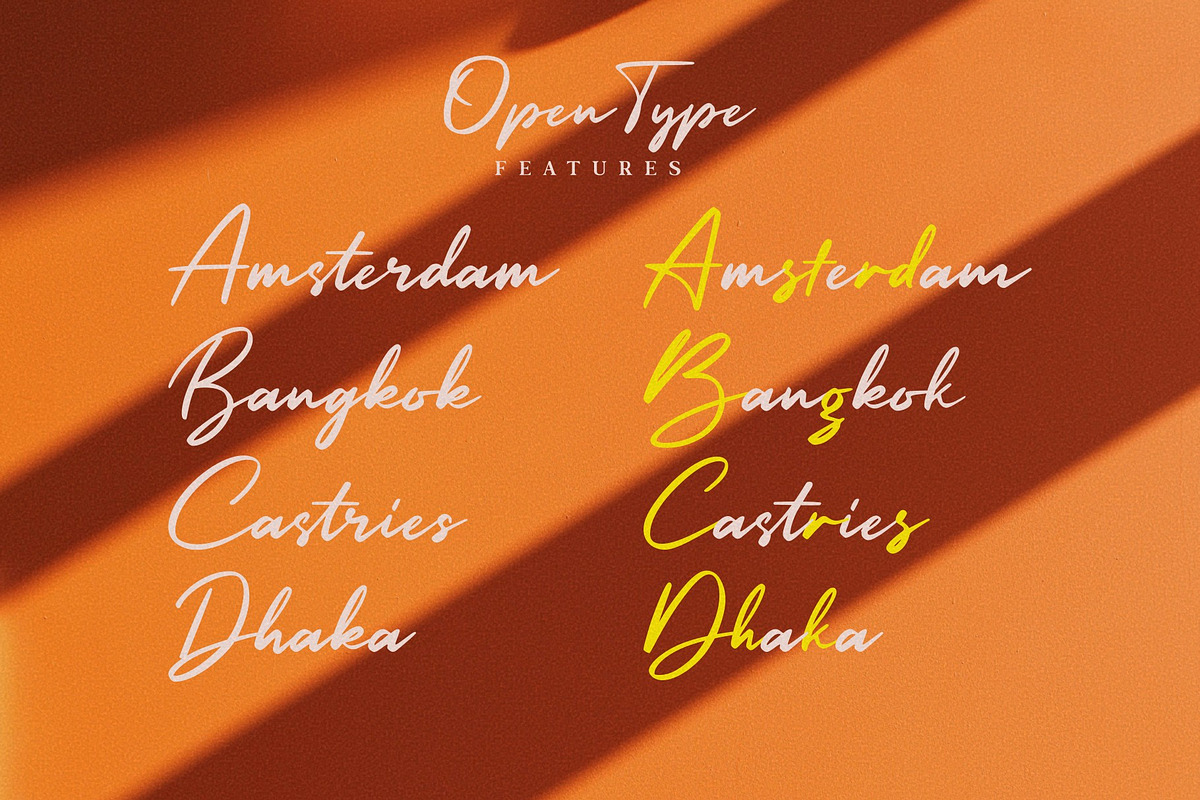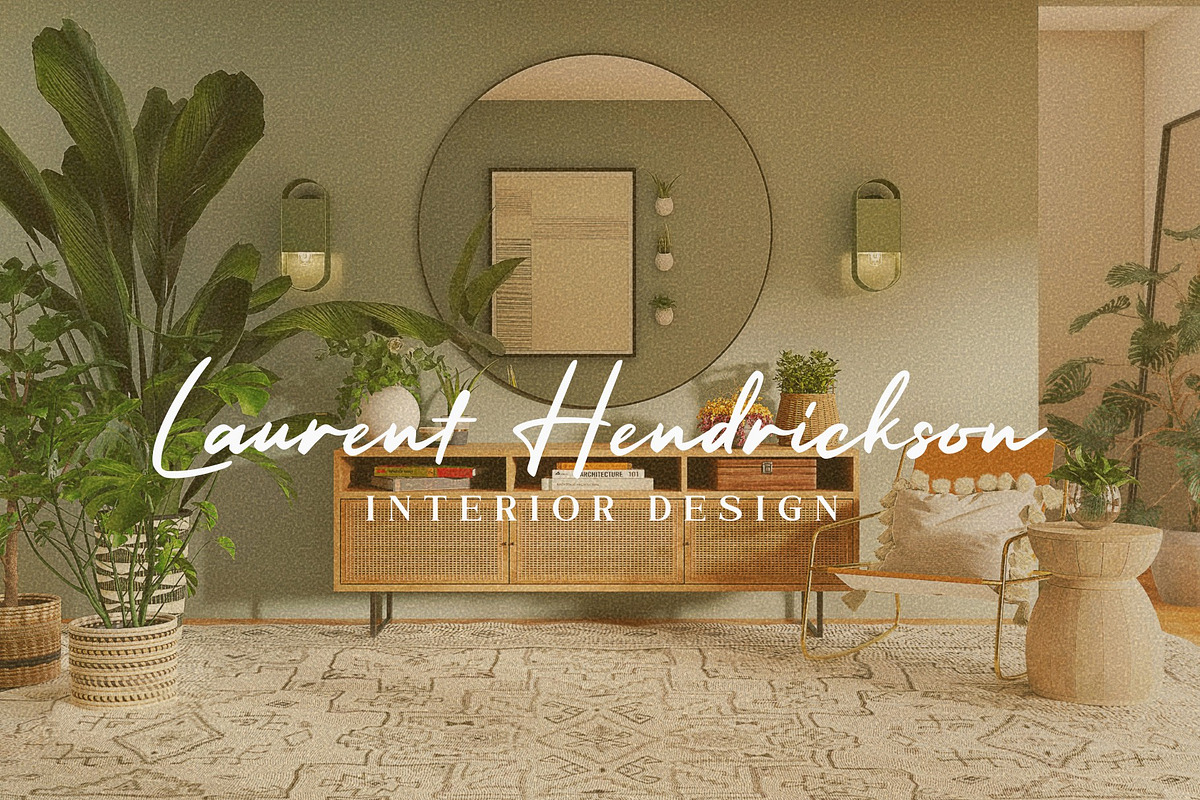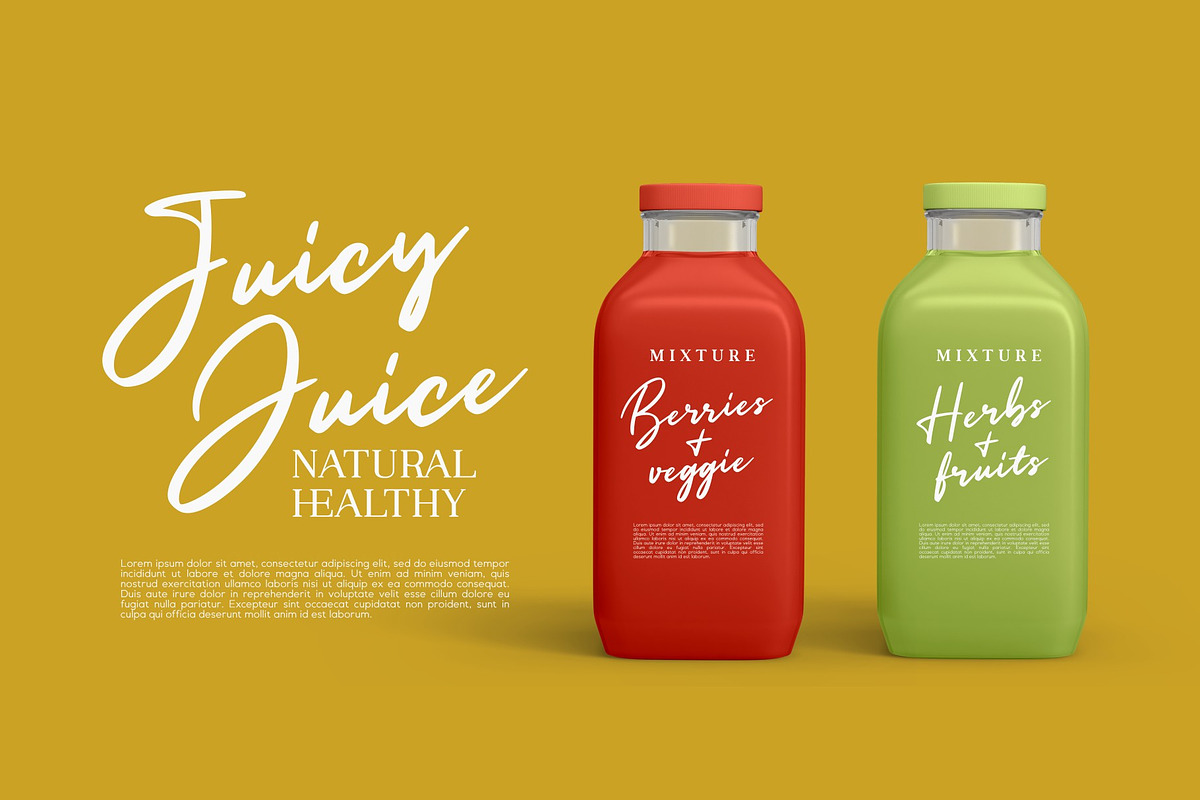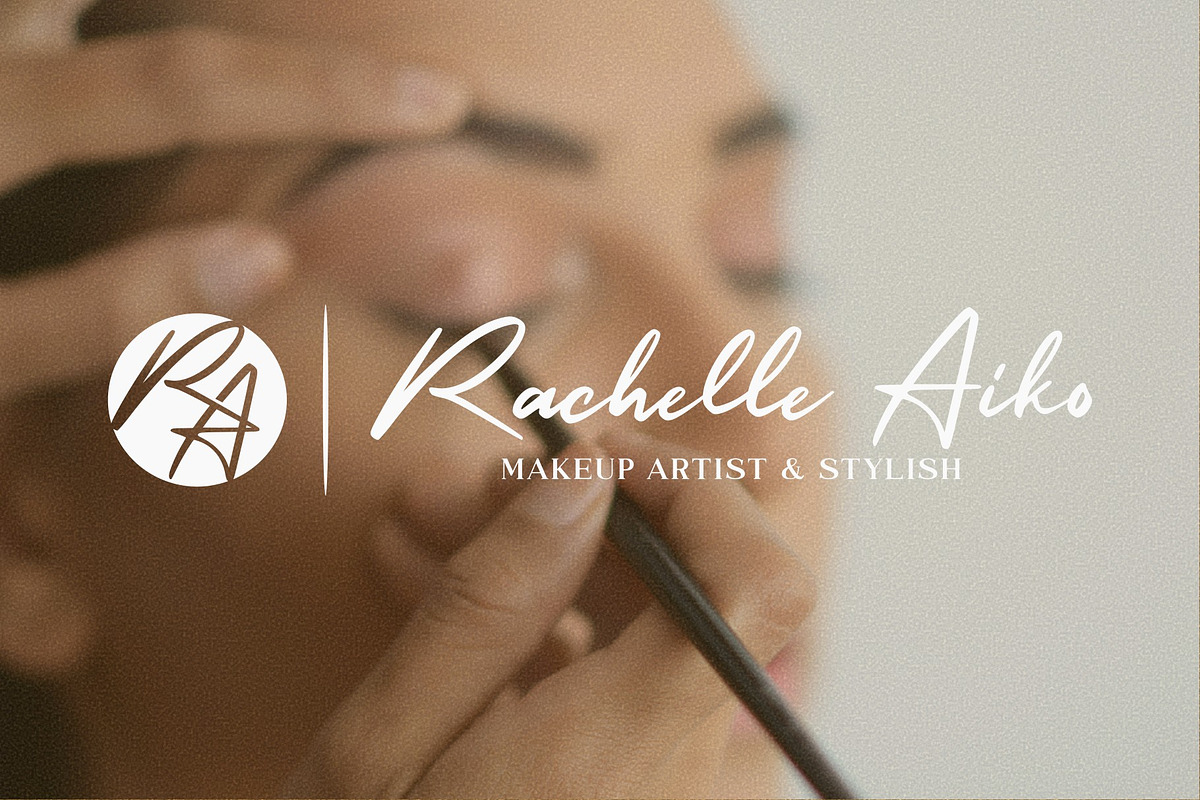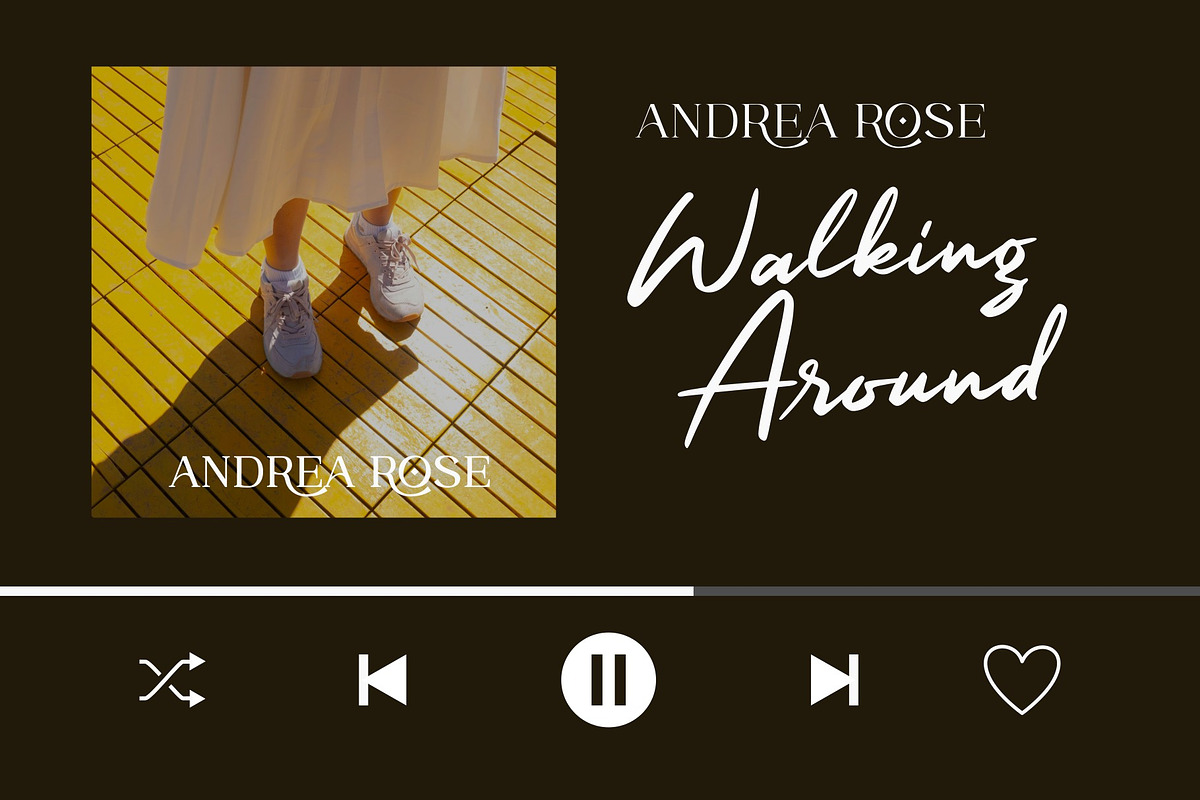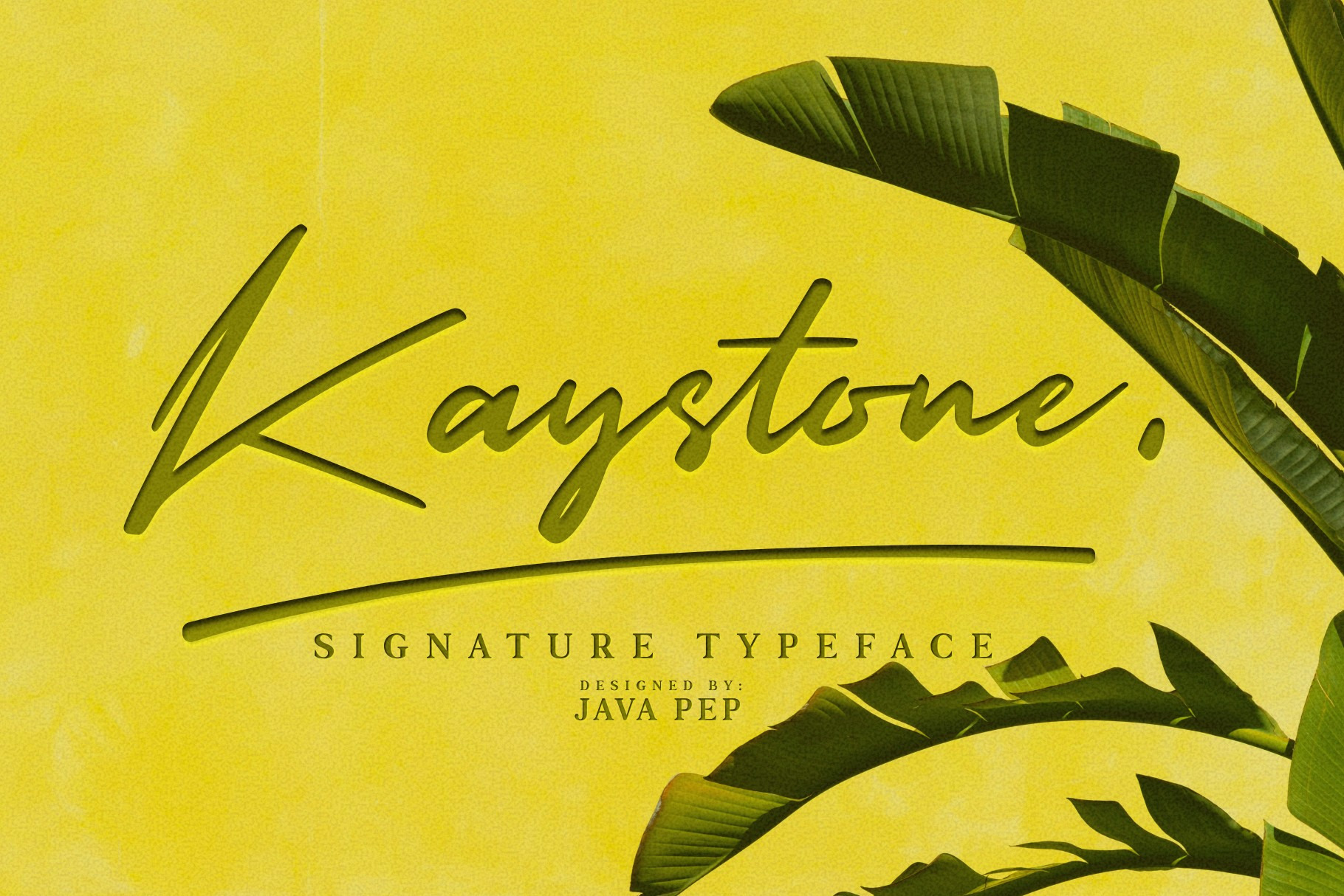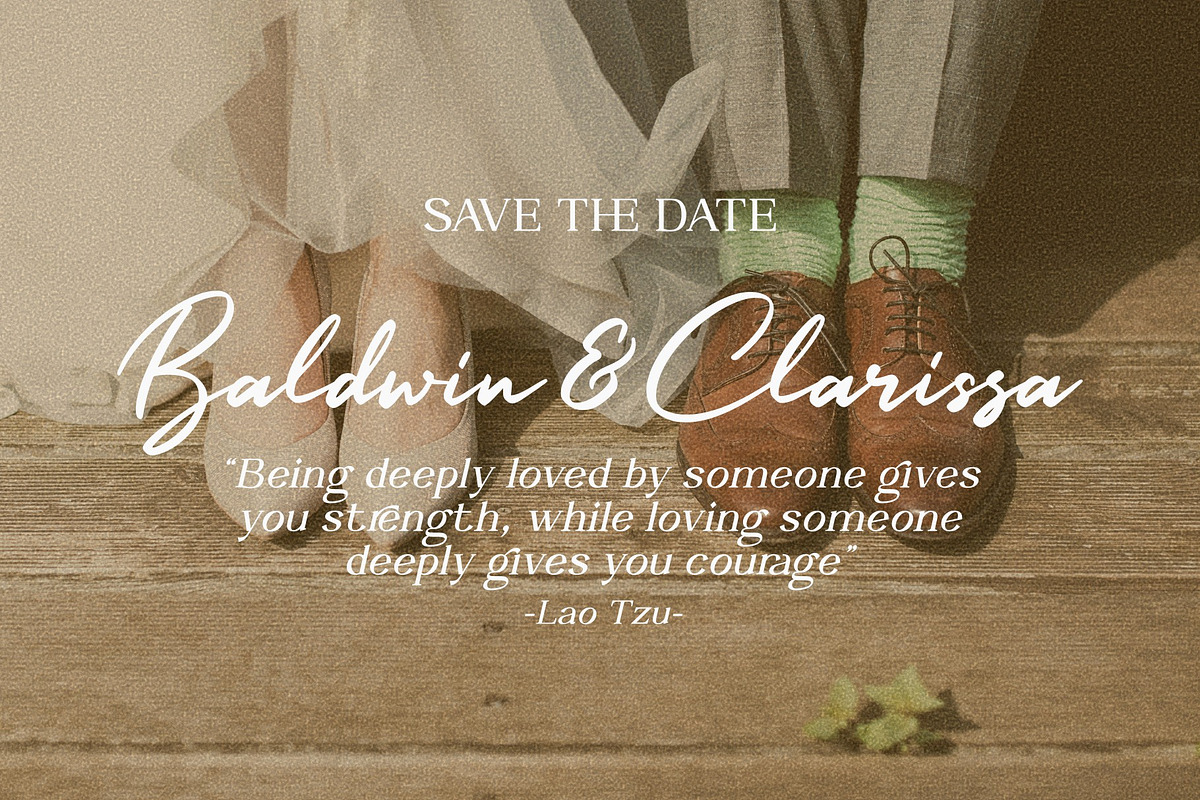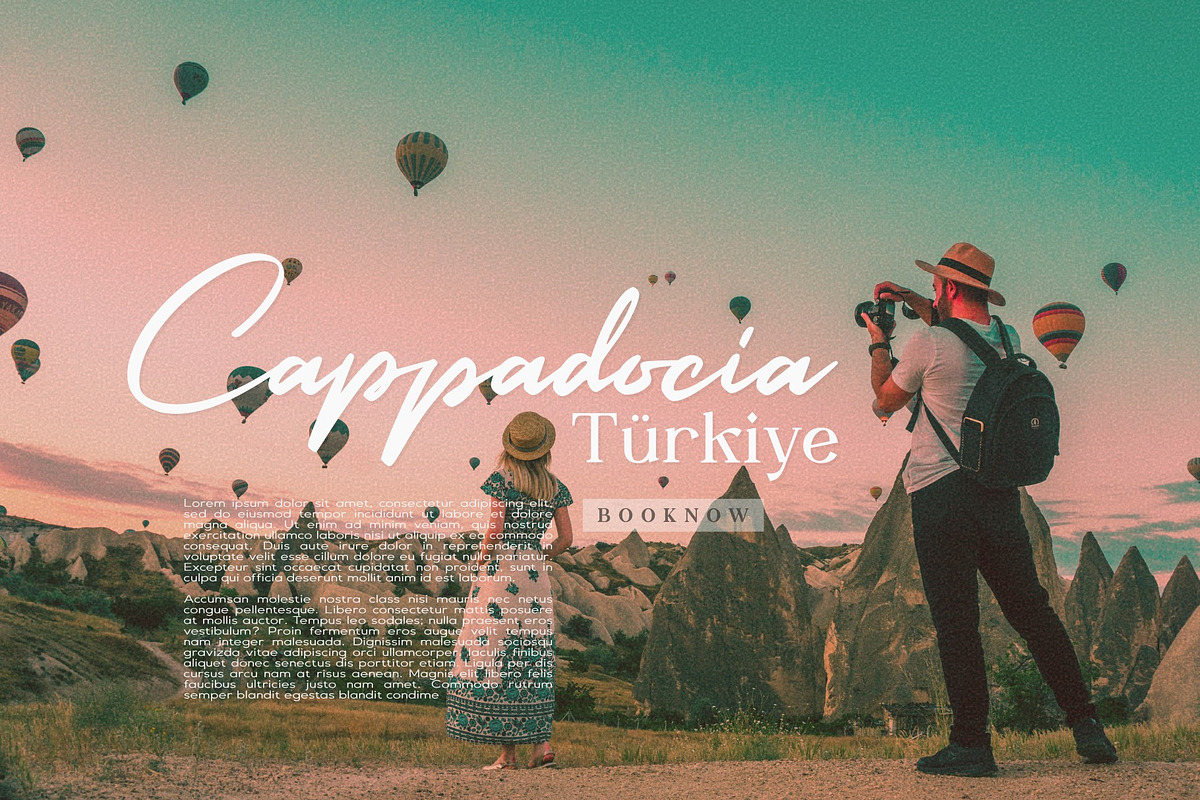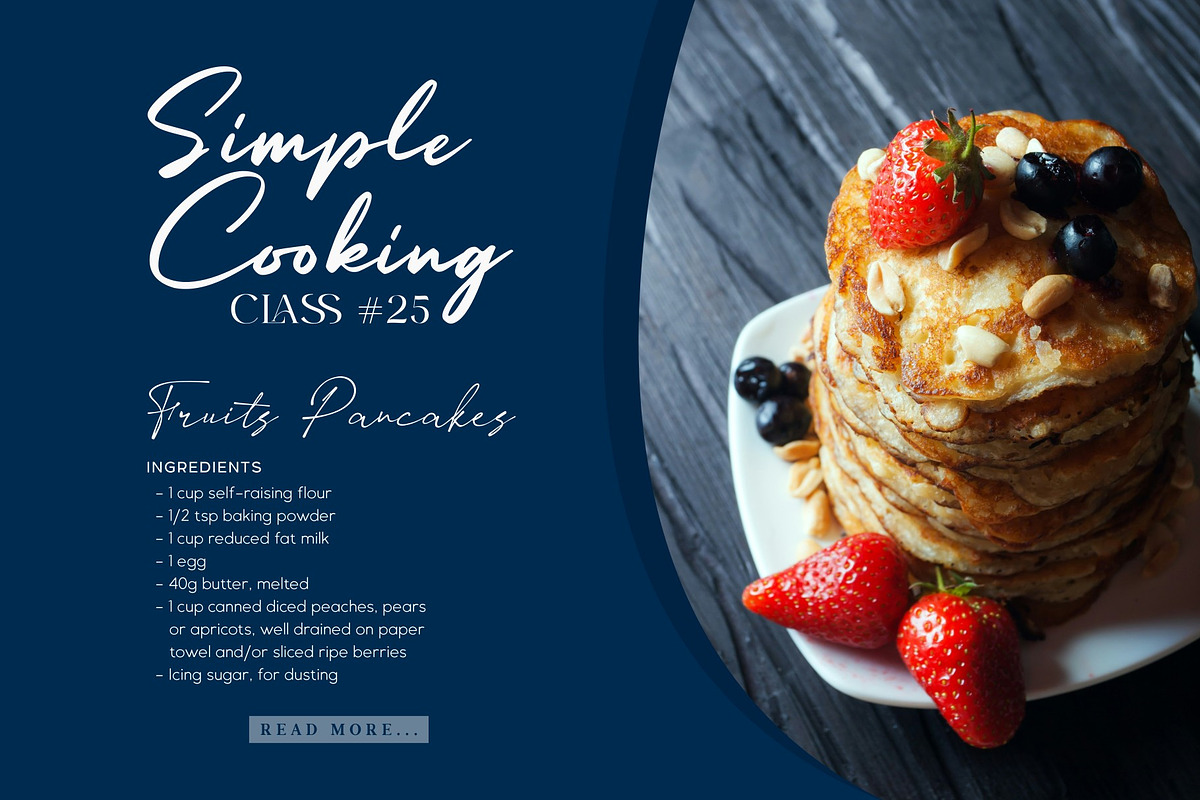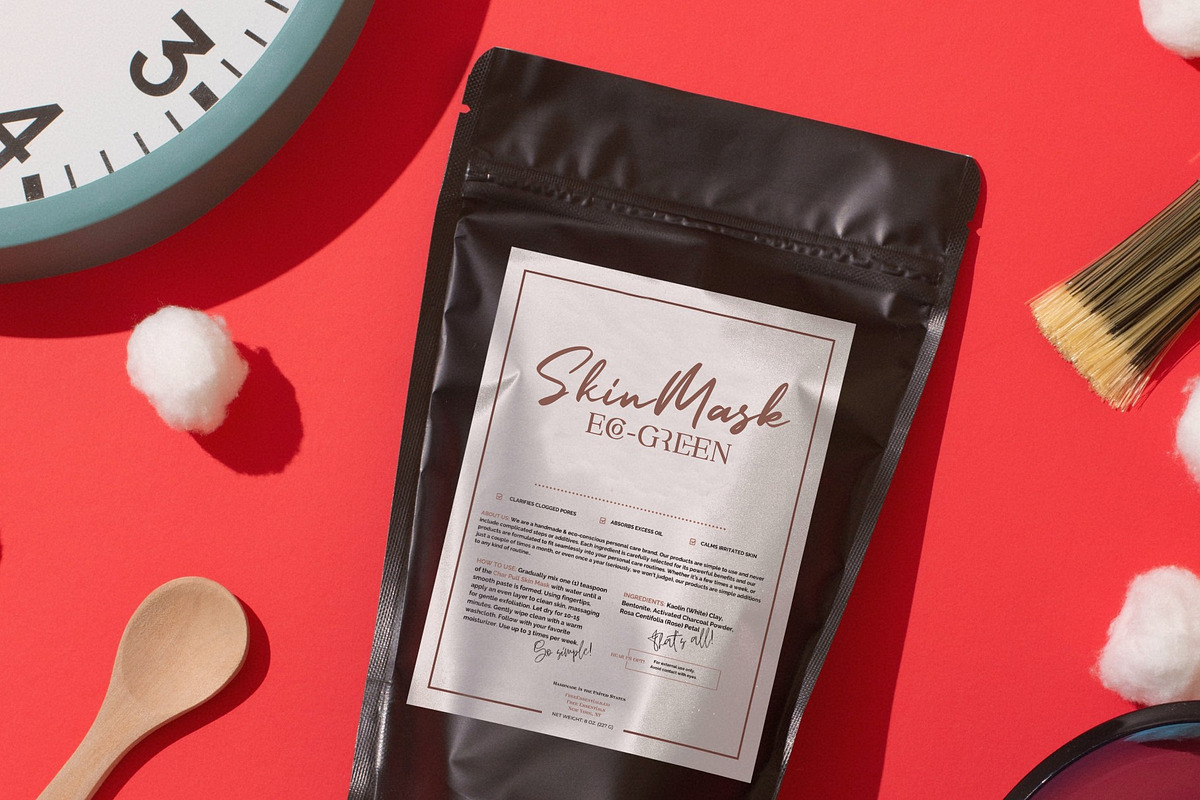
Kaystone / Signature font
Kaystone font is the signature typeface with an elegant style. This font comes with alternate features to make your project design more standout and elegant. Kaystone font also has multilingual features with more than 30 languages. This font is perfect for branding, wedding invitations, greeting cards, publishing, logotype, headlines, quotes, advertising, product packaging, etc.